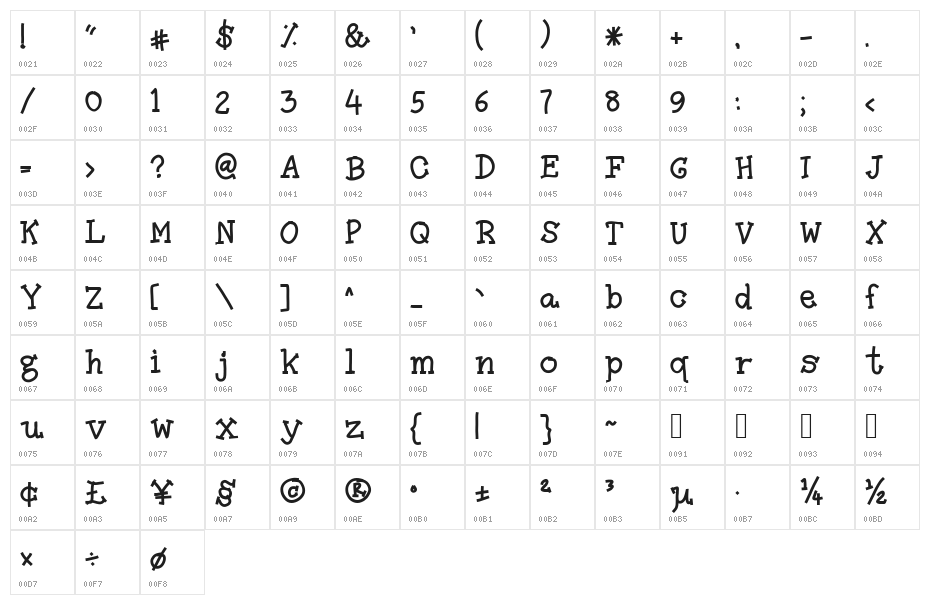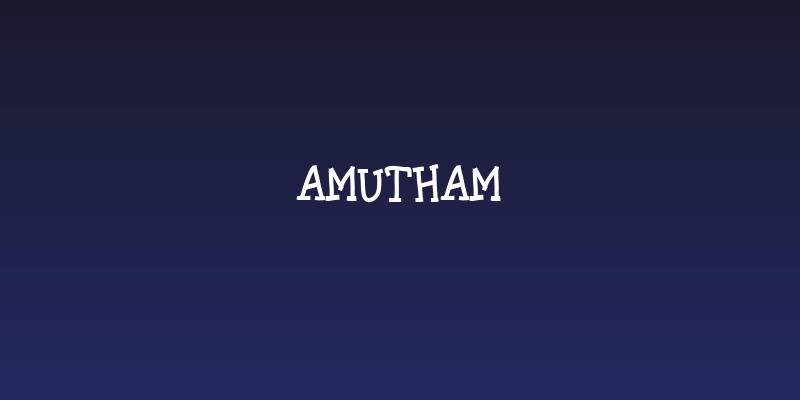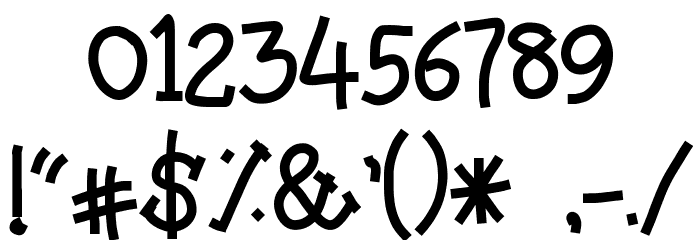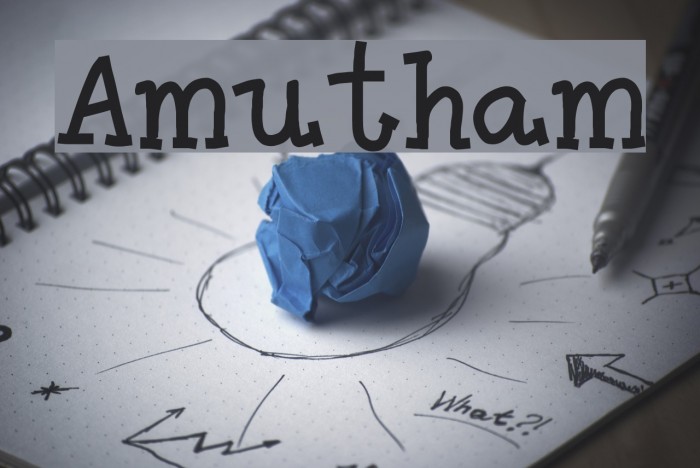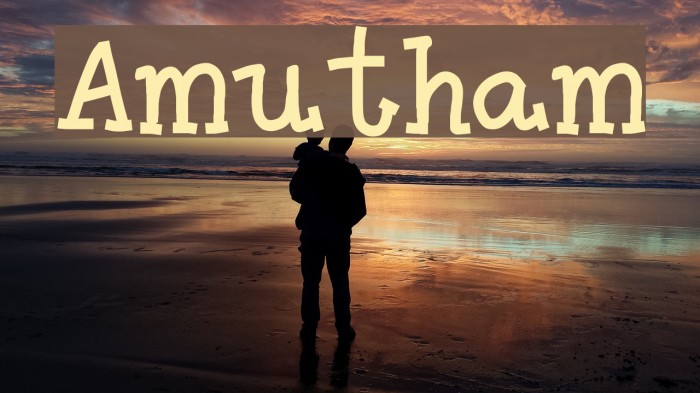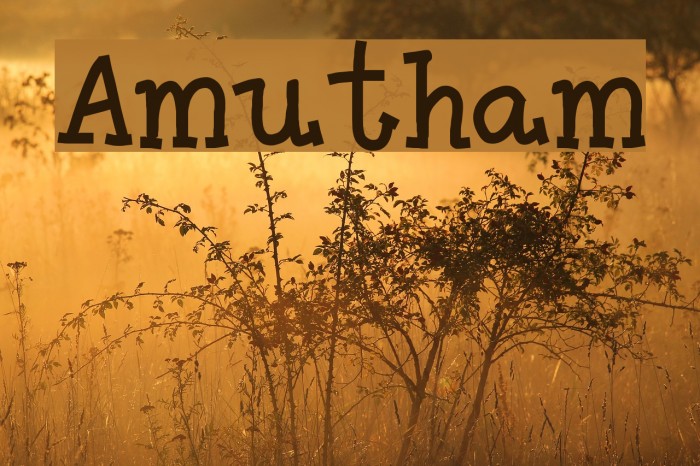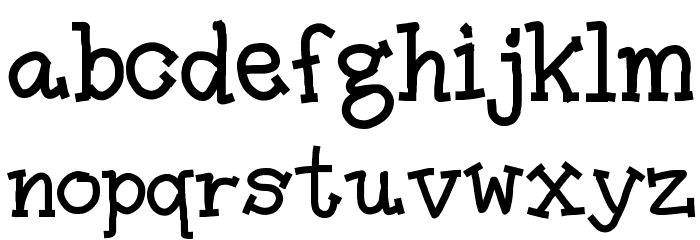
Amutham Font
Amutham Description
This font features a playful and whimsical design with a hand-drawn aesthetic. The letters have a slightly uneven baseline, giving them a casual and informal appearance. The strokes are bold and rounded, with a slight tilt that adds to the dynamic and lively feel. The uppercase and lowercase characters maintain a consistent style, while the numbers and special characters complement the overall look. This font is ideal for projects that require a fun and approachable vibe.
| Proposed Projects | Ideal for children's books, greeting cards, playful branding, and casual invitations. |